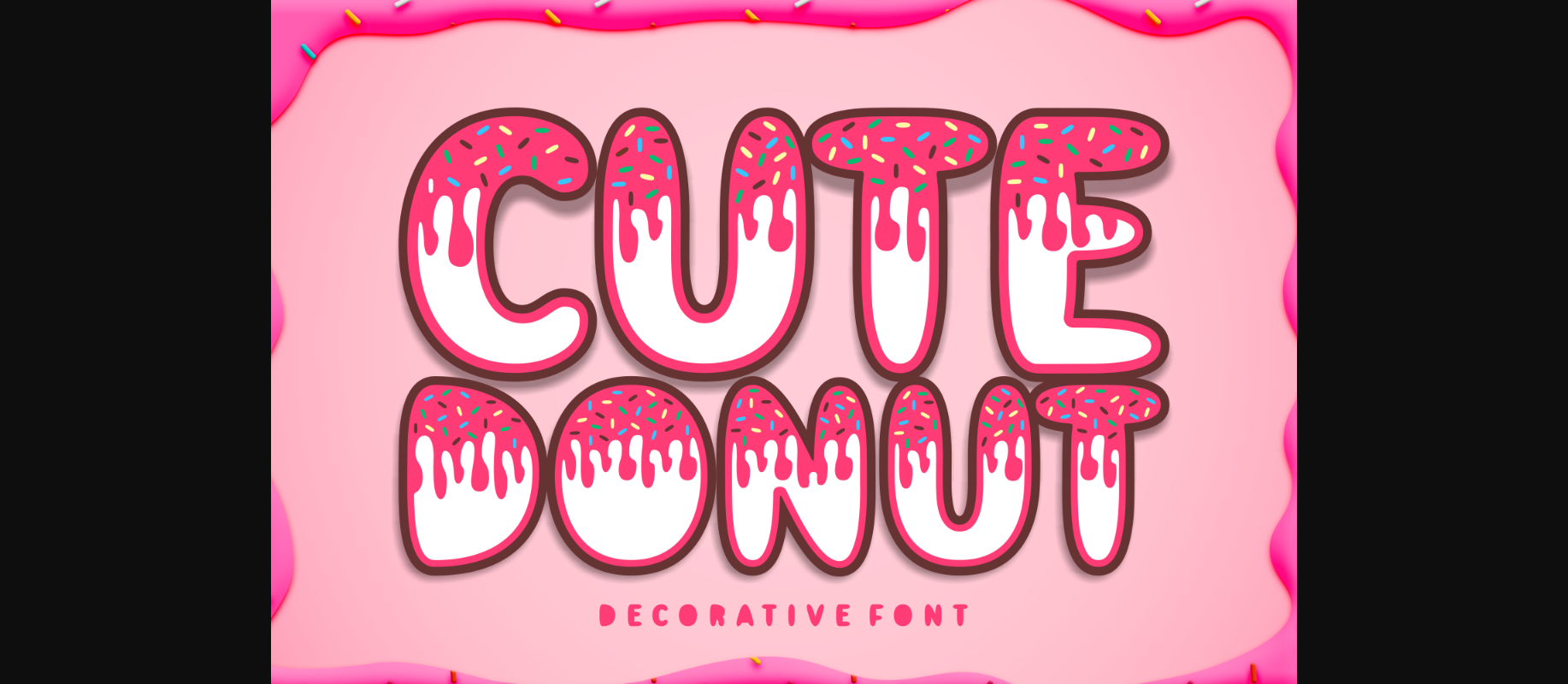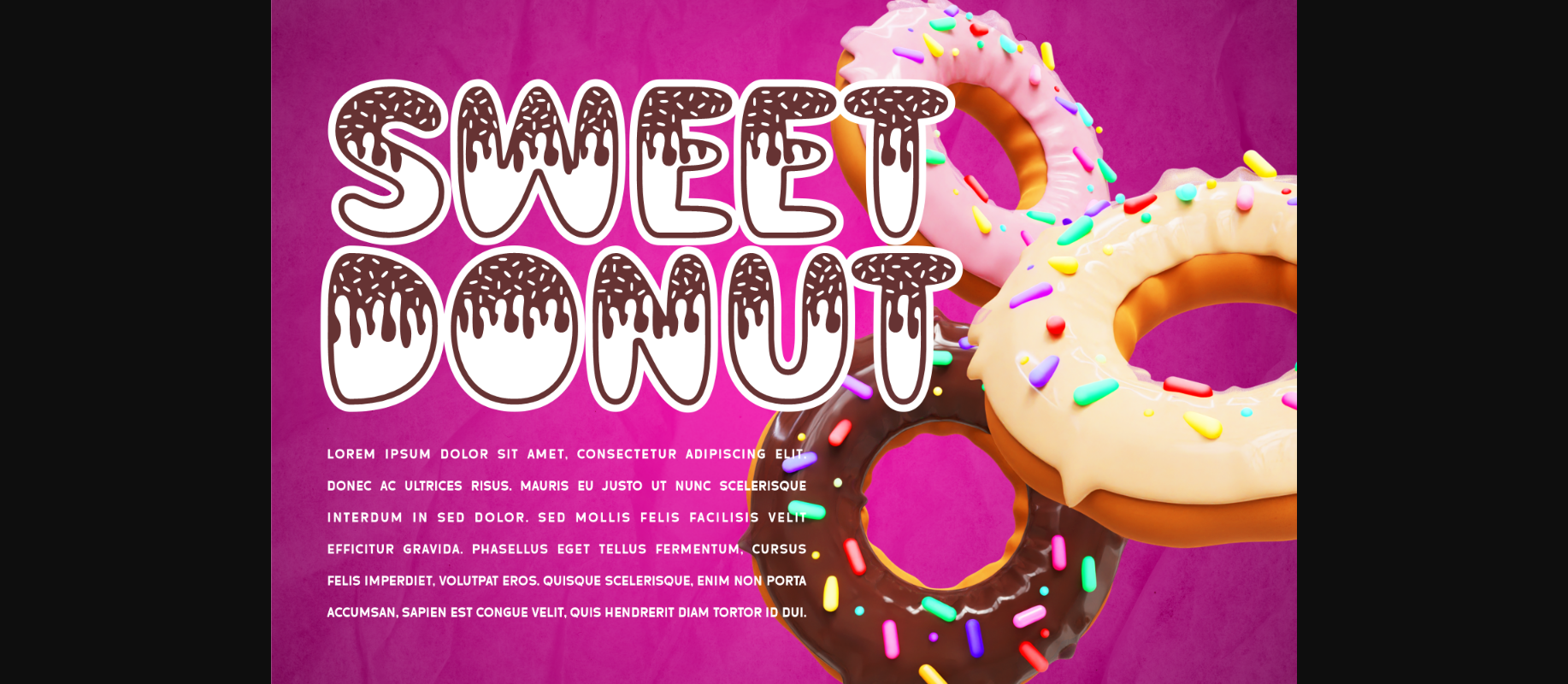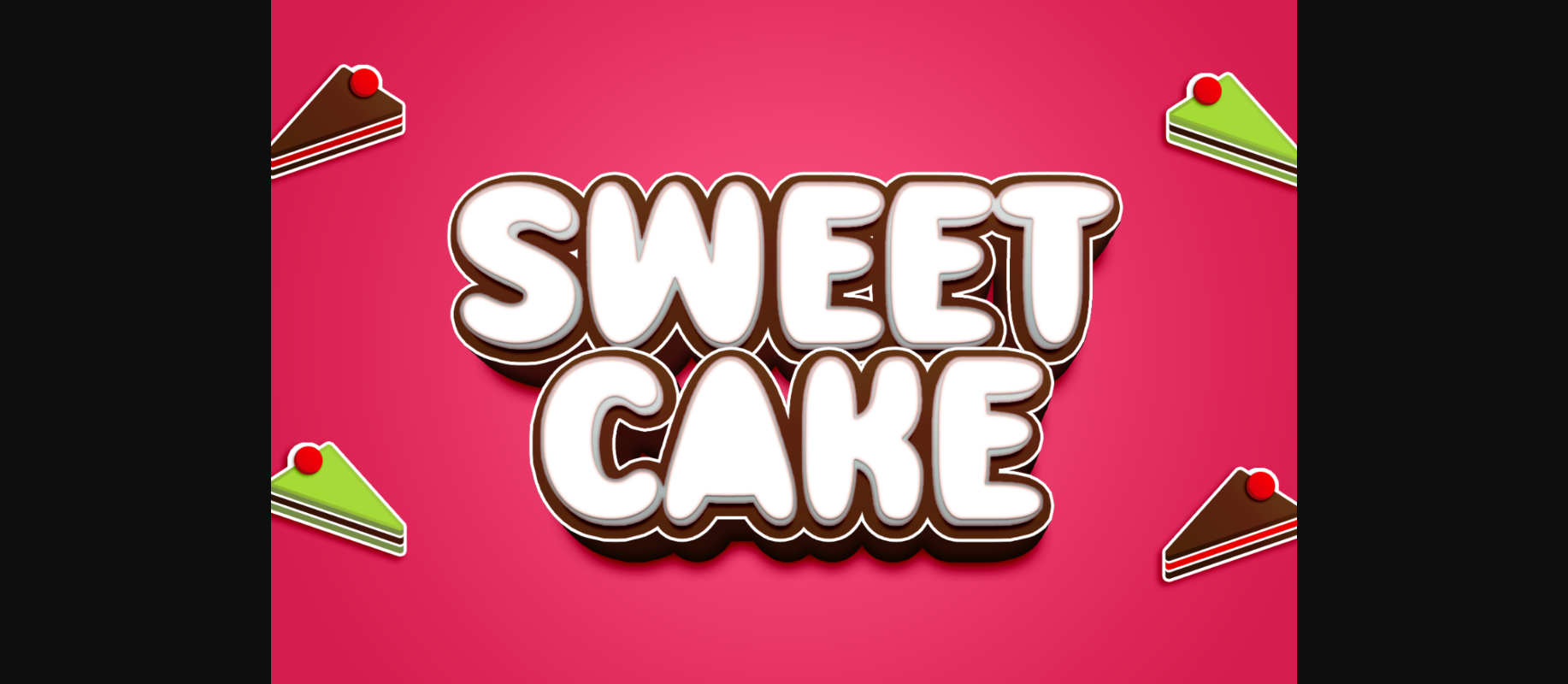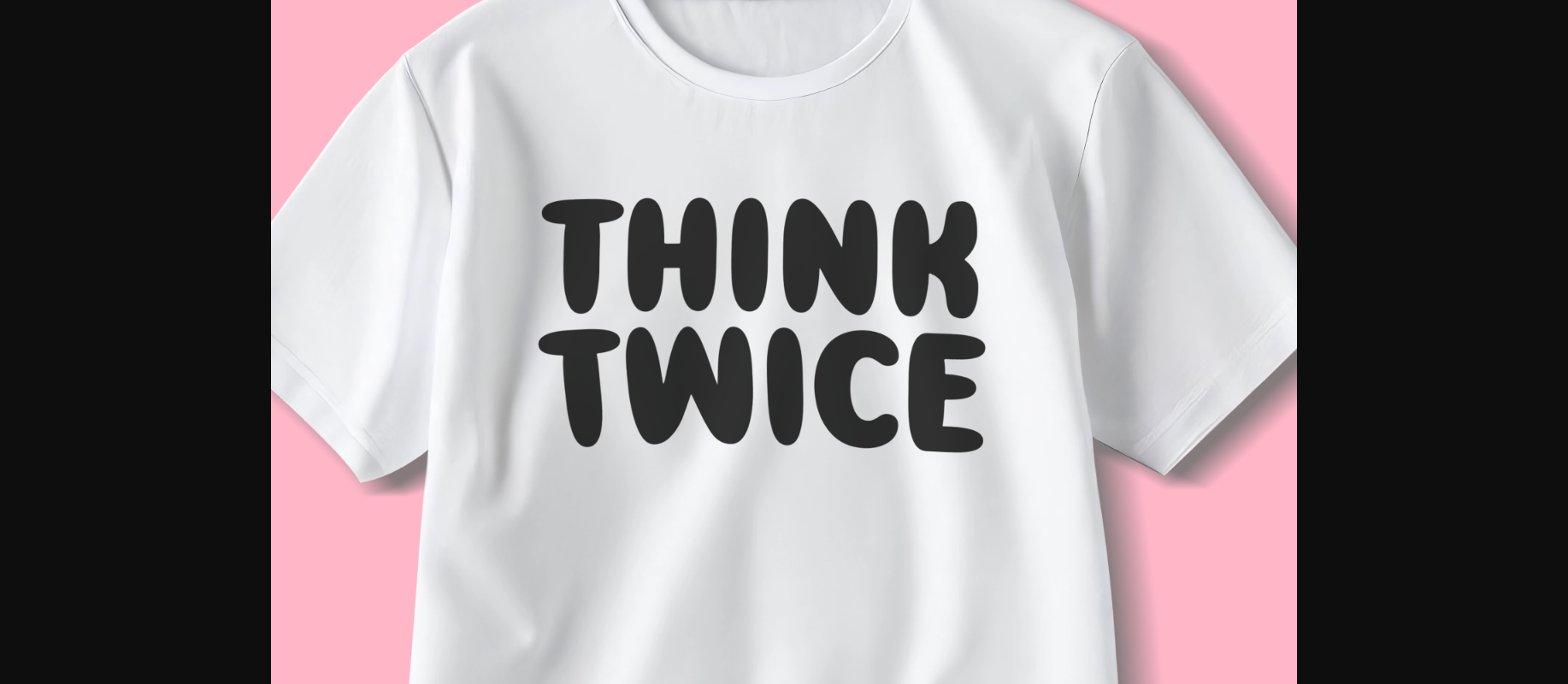
Cute Donut Font
About Cute Donut Font
Cute Donut is an incredibly quirky and sweet decorative font. Whether you use it for cartoon related designs, children games or just any creation that requires a lovely touch, this font will be an amazing choice.